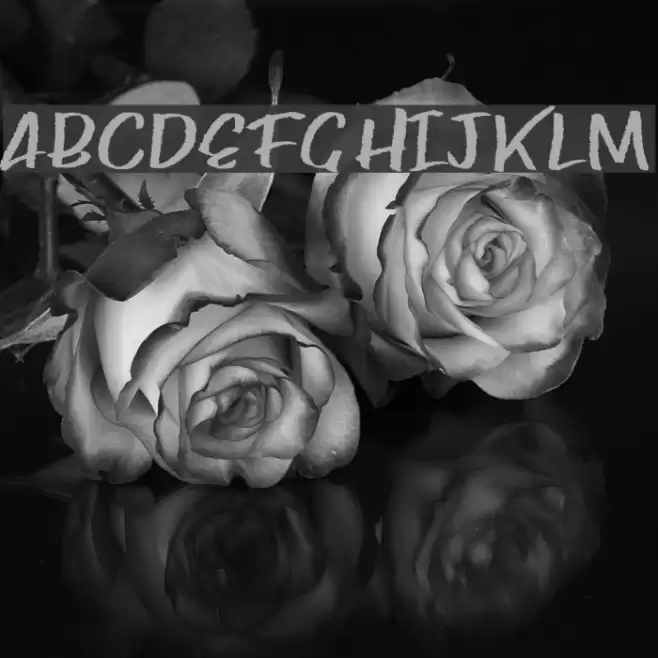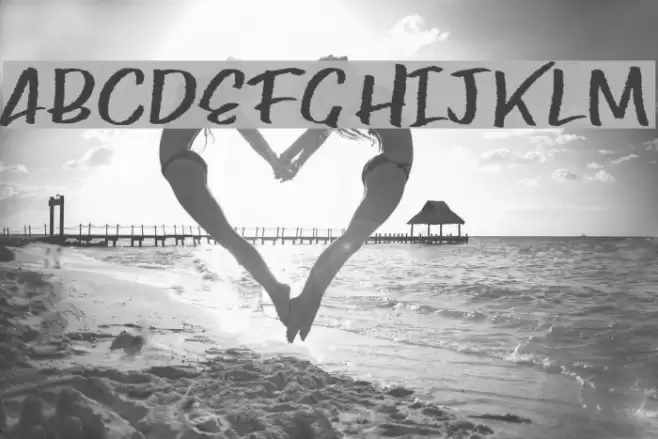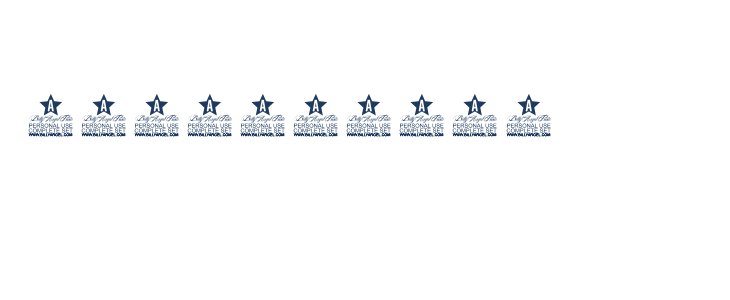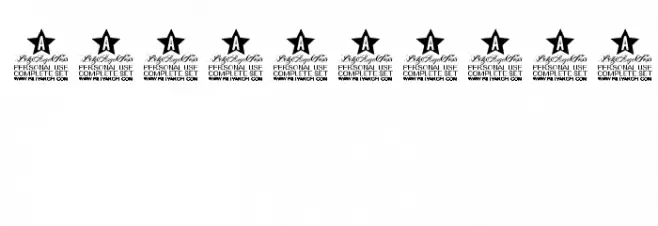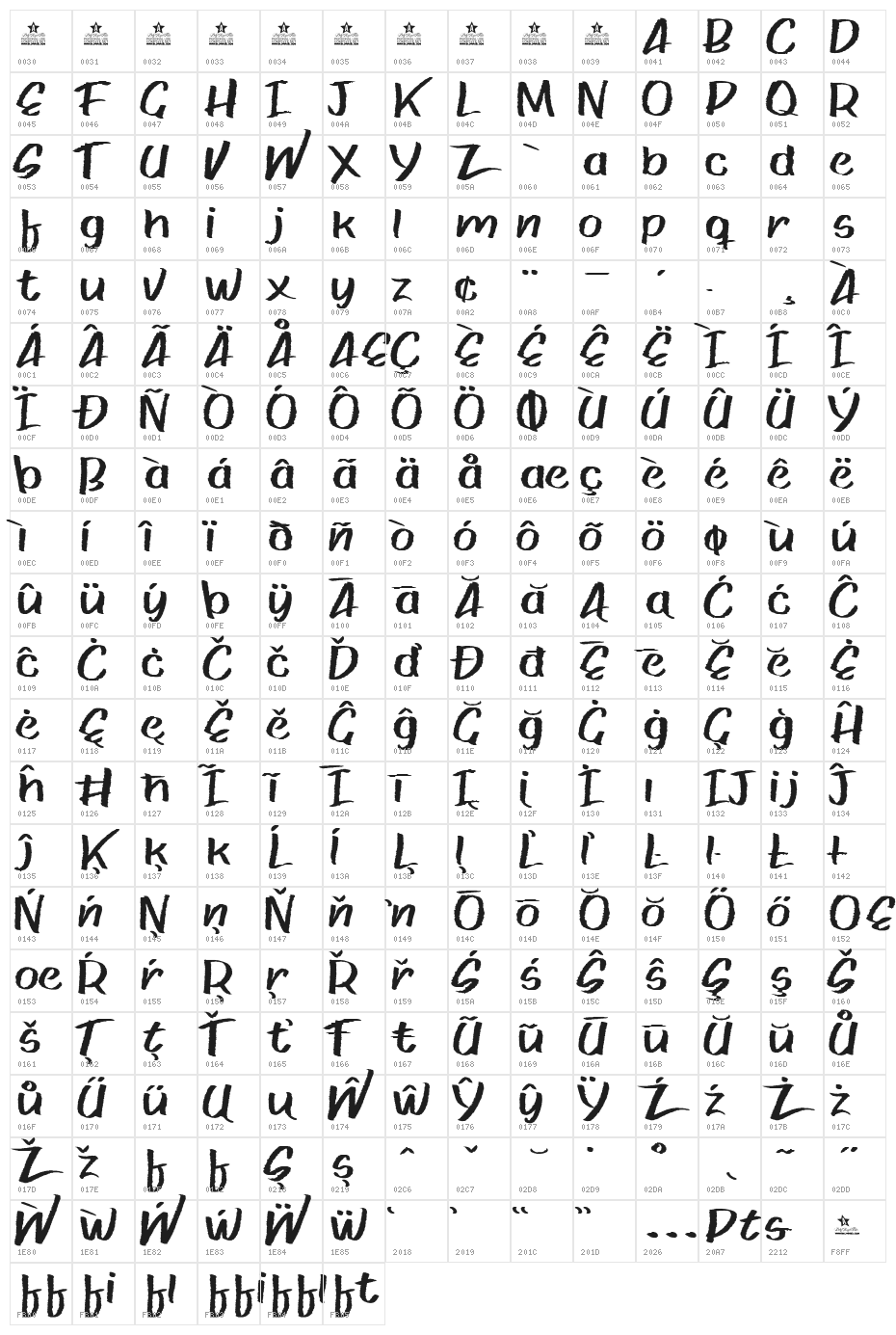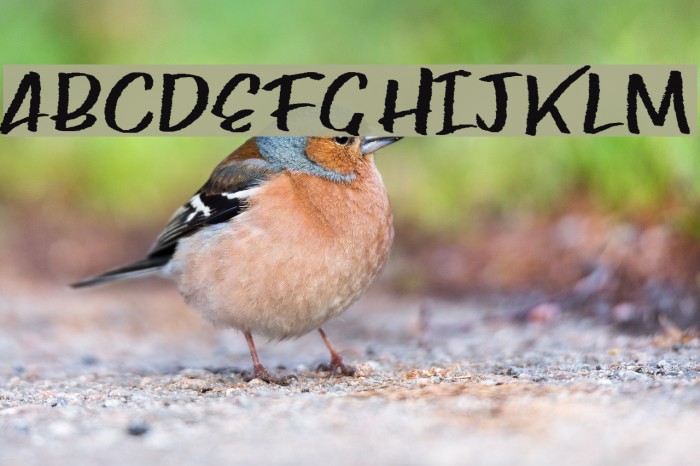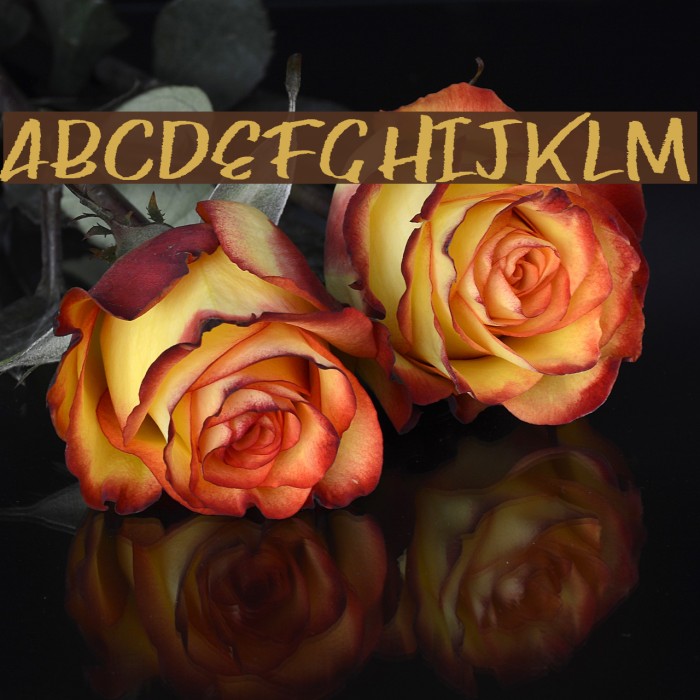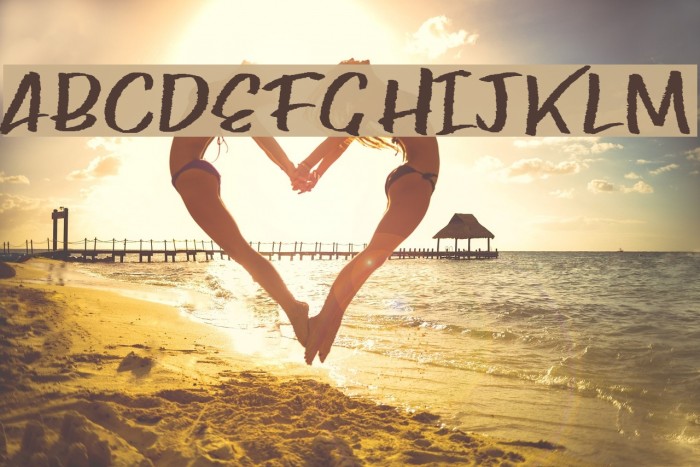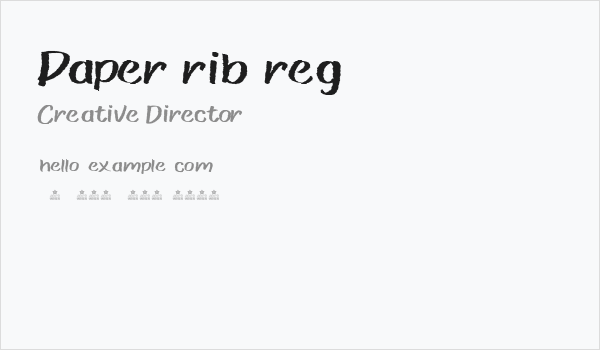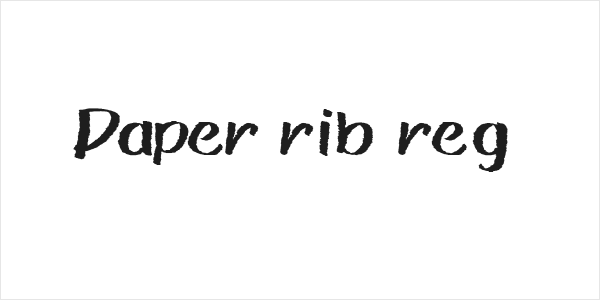
Paper rib reg Font
Paper rib reg Description
This font features a bold and expressive handwritten style, characterized by its brush-like strokes and dynamic flow. The uppercase letters exhibit a strong presence with slightly irregular shapes, giving a natural and artistic feel. The lowercase letters maintain a consistent style, complementing the uppercase with their fluid and organic forms. The numbers and special characters are crafted with the same attention to detail, ensuring a cohesive look across all glyphs. This font's unique personality makes it suitable for projects that require a personal touch or artistic flair.
A bold, expressive handwritten font with brush-like strokes and dynamic flow from Uncategorized fonts.
- Proposed Projects: Ideal for branding, invitations, greeting cards, and artistic projects that require a personal touch.
- Overall Style: Artistic
- Use Case: Logos, Headlines, Artistic projects